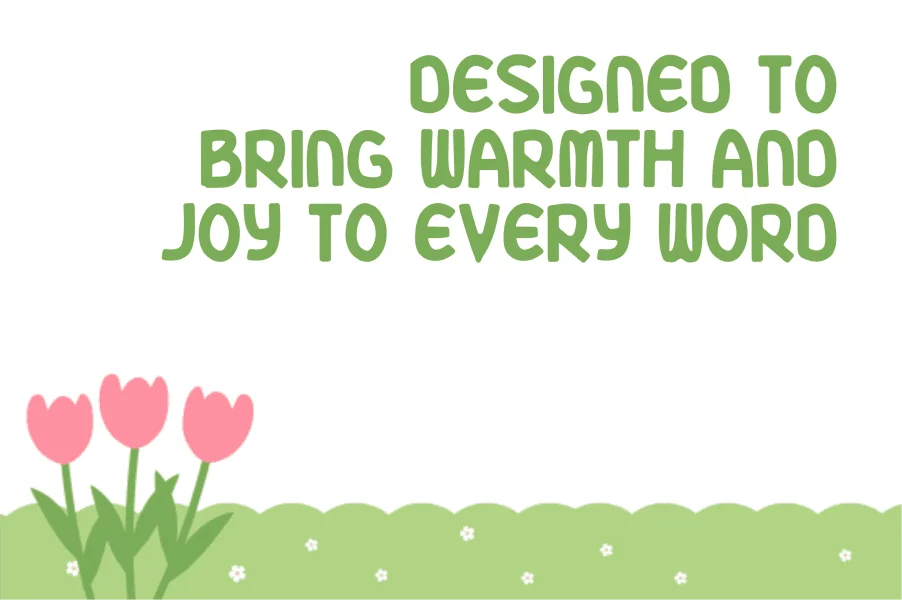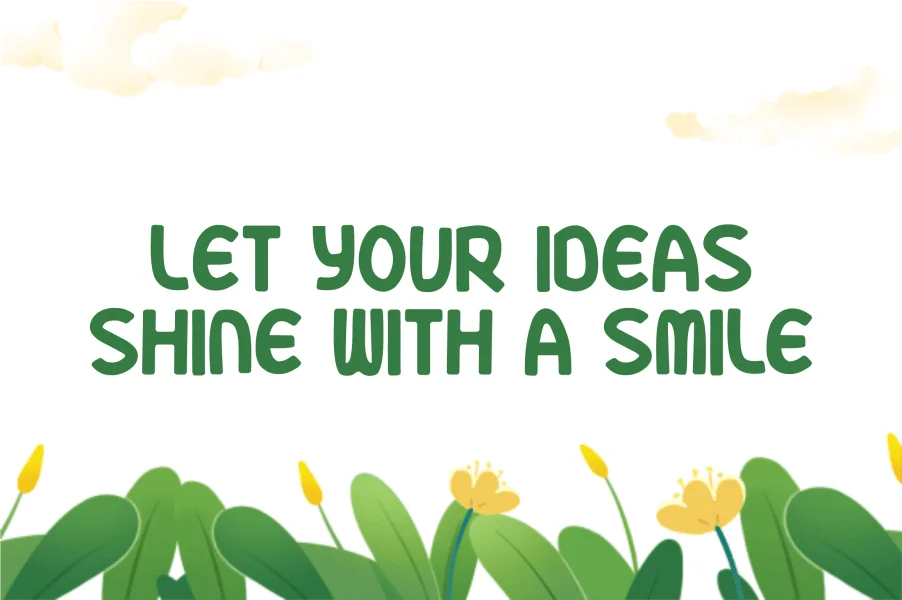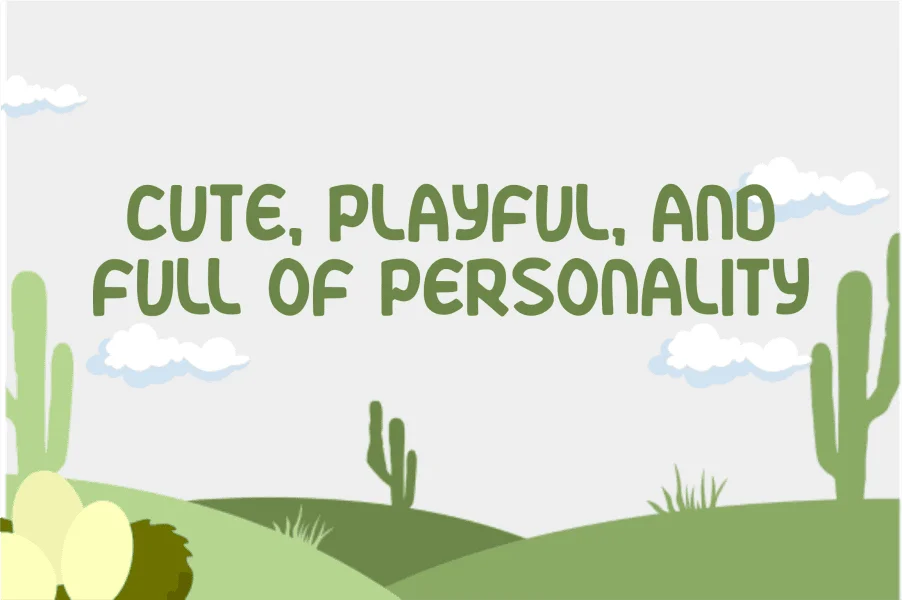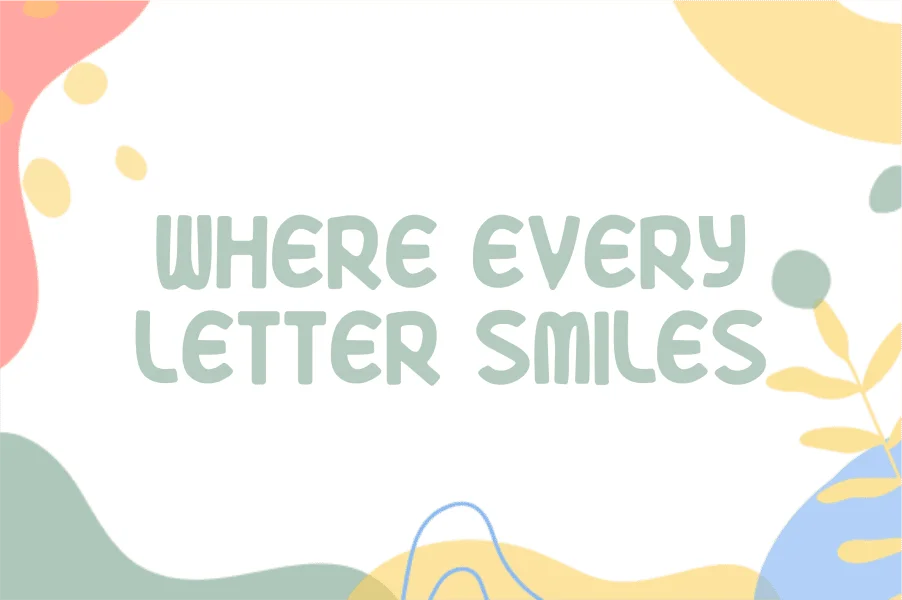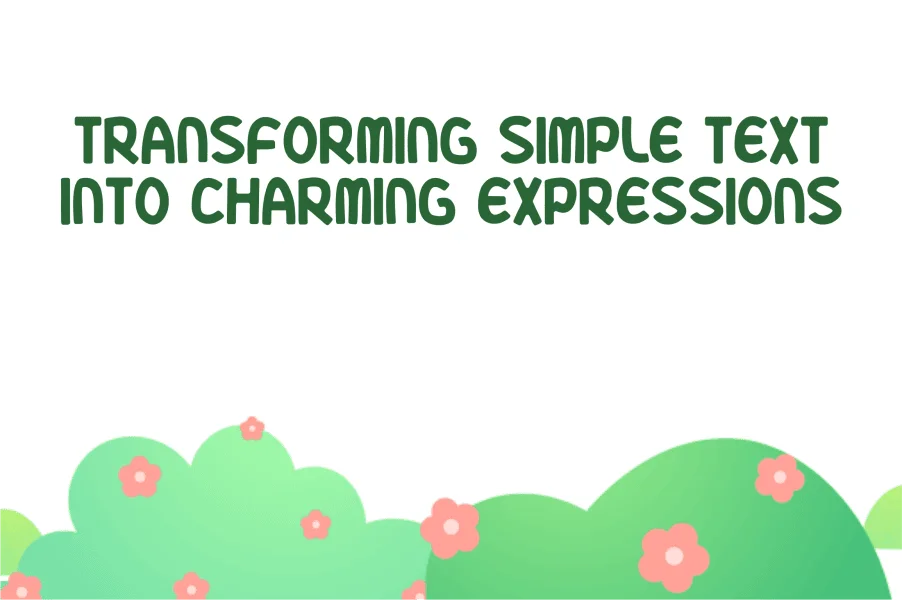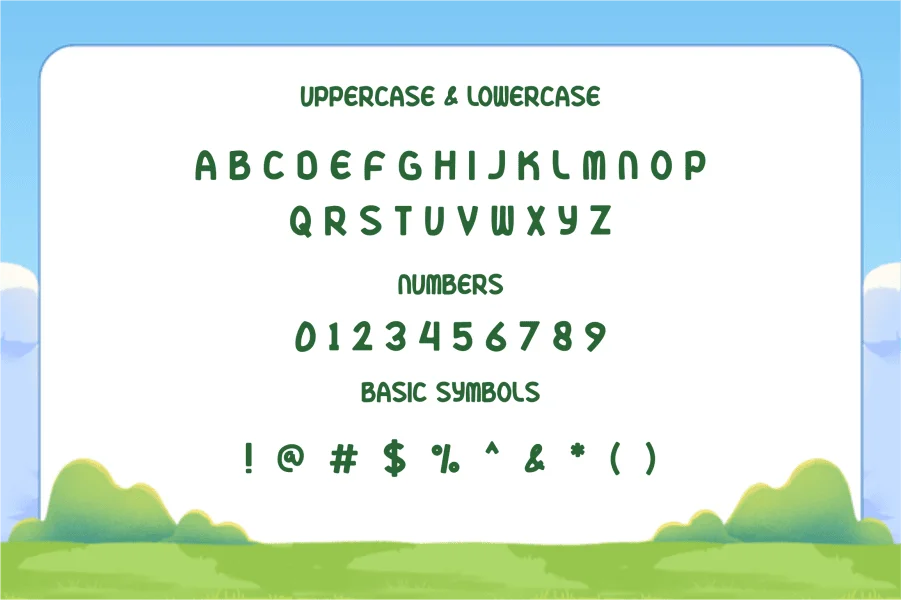
bobbaluna cupcake is a playful, rounded display typeface designed to radiate warmth and joy. Its soft, pillowy letterforms feature a friendly, hand-drawn quality with gently curved terminals and a bouncy, organic rhythm. The overall construction is thick and bubbly, giving the text a cozy, approachable texture that feels both animated and comforting.
This typeface is perfectly suited for children's book designs, cheerful greeting cards, and whimsical product packaging. Its soft, friendly demeanor also makes it an excellent choice for playful brand identities, educational materials, and any creative project aiming to convey a sense of happiness and charm.